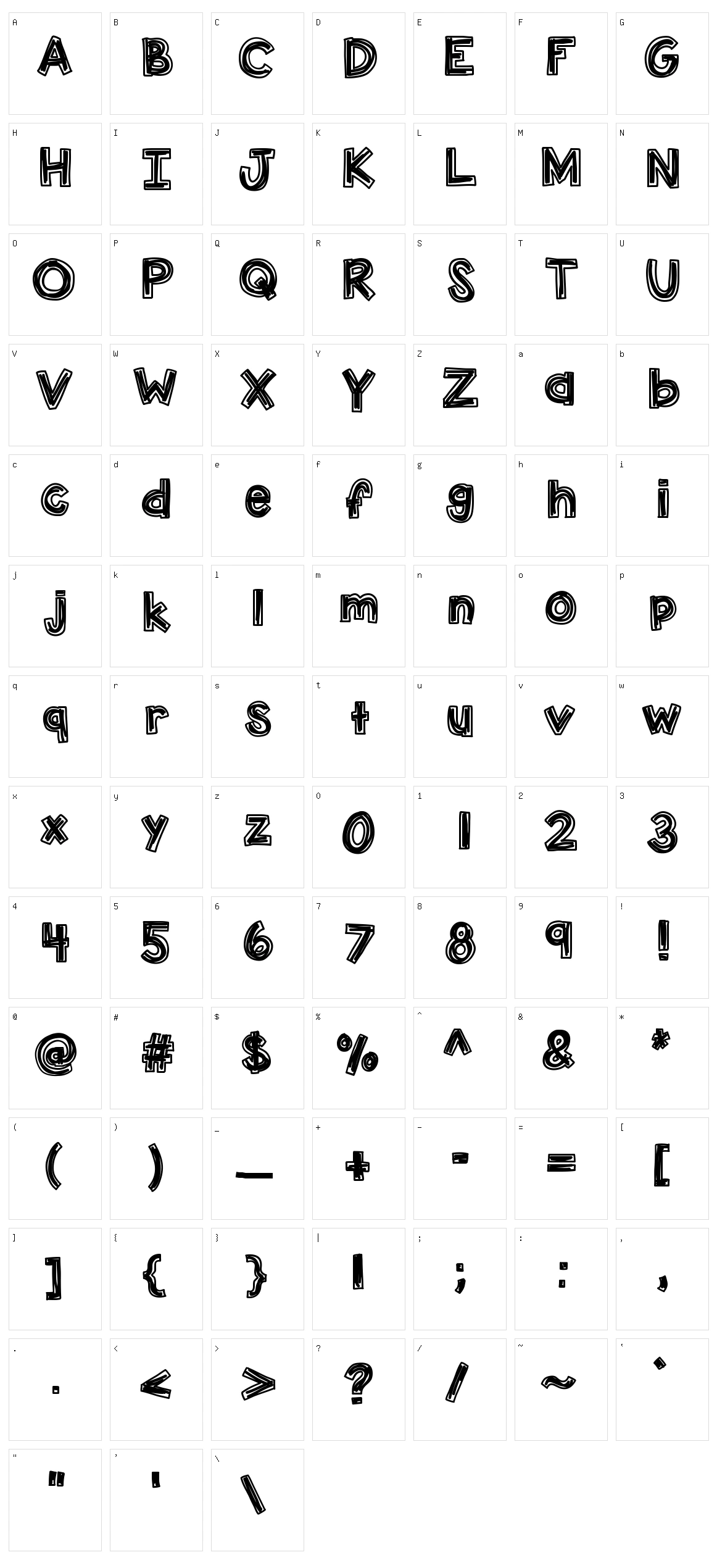
The free font KB Lucky Clover is carefully designed by Khrys Bosland, showcasing a thoughtful balance of creativity and usability and falls under the Cartoon font style. When you download the ZIP file, it contains only 42.08 KB of font files, making it lightweight and quick to download. Please review the license details below to understand permitted usage and distribution rights. If license information is not available, we recommend using this font for personal projects only or contacting the author directly for commercial usage permissions.